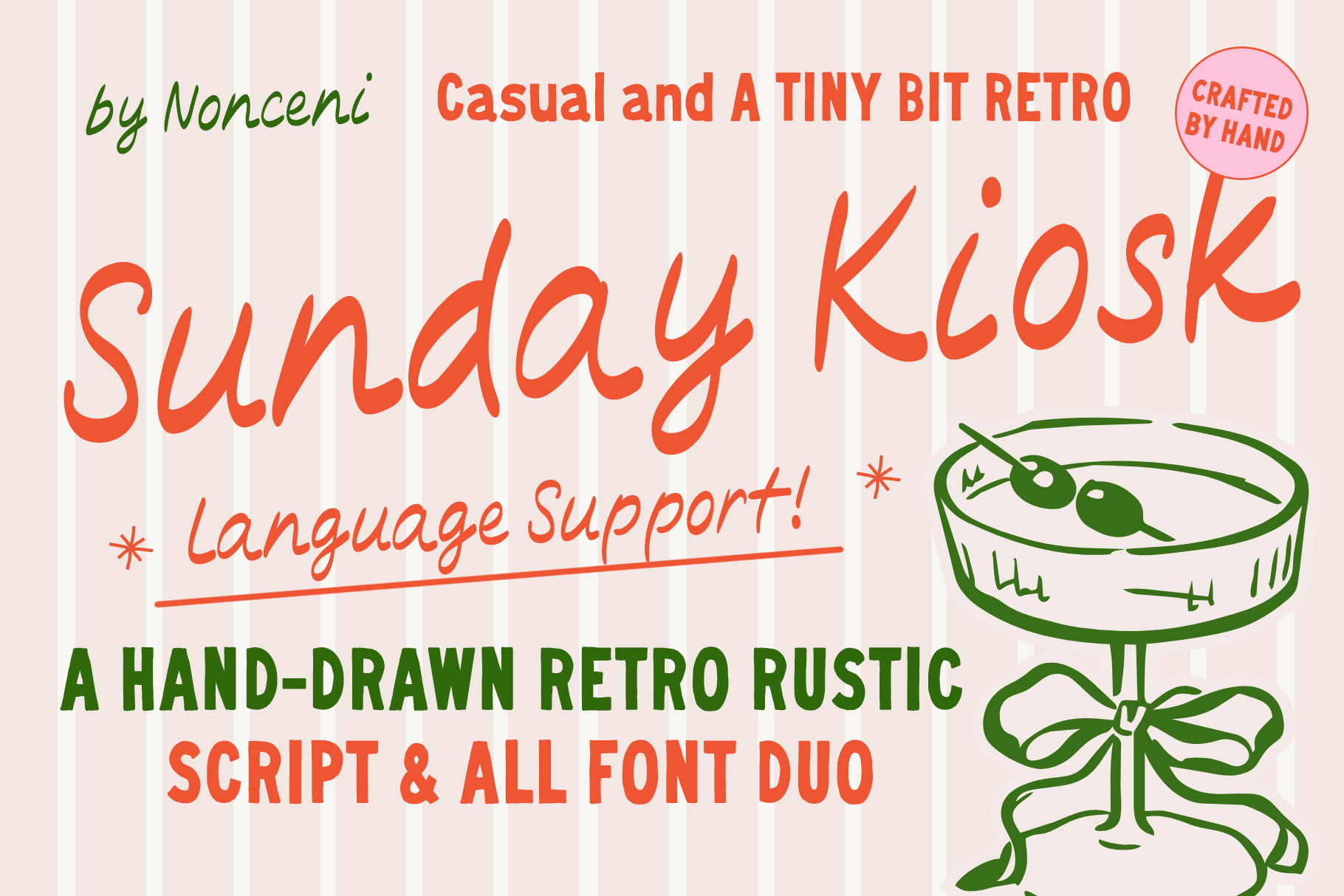
Retro Rustic Script & Bold Font Duo
Bring a pinch of nostalgia and a casual, sun-drenched vibe to your projects with Sunday Kiosk, a charming hand-drawn retro rustic font duo by Nonceni.
Sunday Script: A fluid, casual hand-lettered script that flows naturally, bringing effortless warmth to headlines and titles.
Cozy Kiosk All-Caps: A complementary, slightly retro rustic display uppercase font designed to anchor your layouts with a distinct, friendly personality.
Multilingual Support: Broad character support covering Western and Central European languages (Latin Extended). (Note: Excludes Czech/Slovak specific characters like Ť and Ď).
Boutique Branding & Packaging: Create memorable logos, labels, and product tags for cosmetics, candles, coffee, and artisanal goods.
Hospitality & Editorial Design: Ideal for resort collateral, travel journals, café menus, and sun-soaked editorial layouts.
Social Media & Stationery: Perfect for Pinterest graphics, aesthetic Instagram quotes, wedding invitations, and party announcements.
DIY & Crafting: Excellent for Cricut projects, custom stickers, and digital planning.